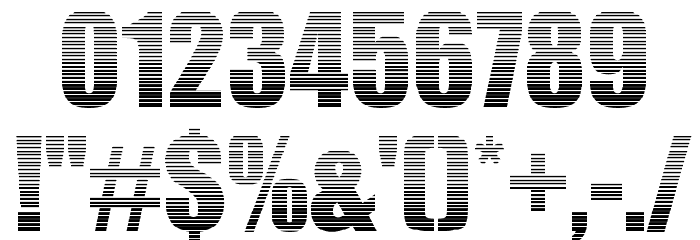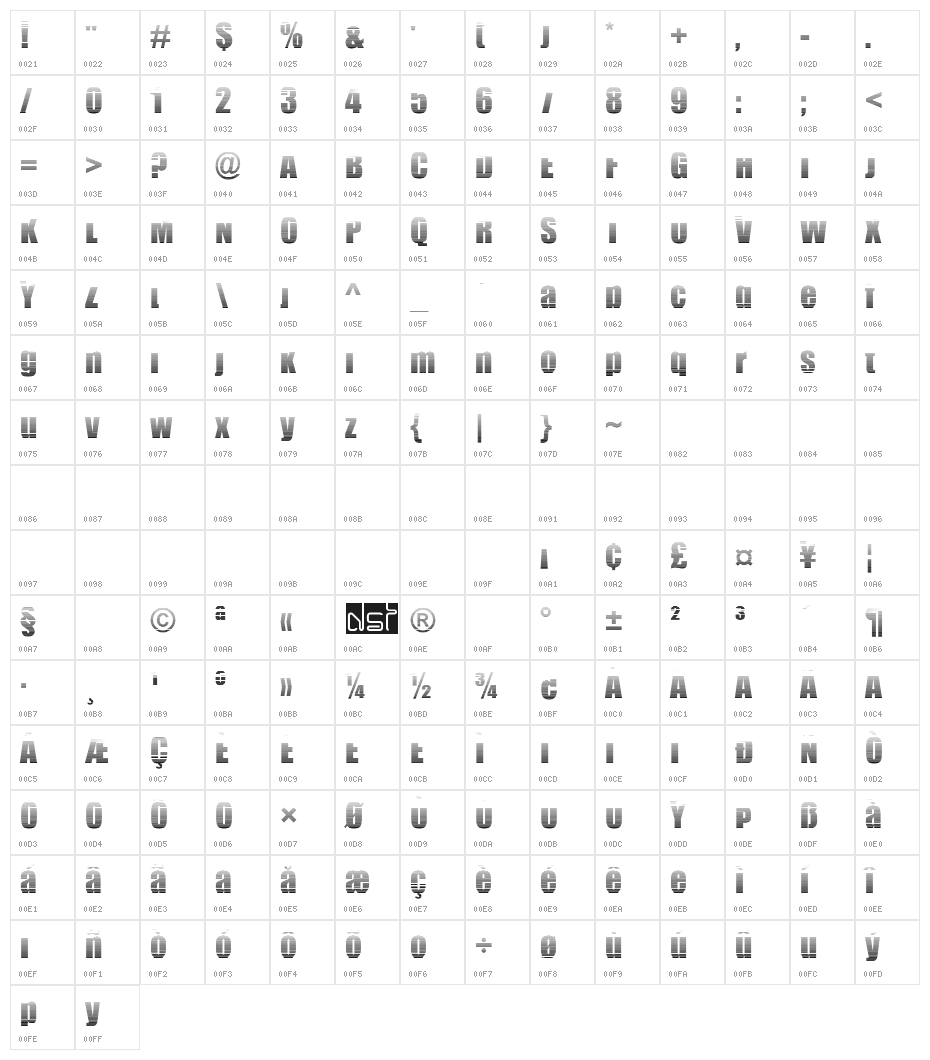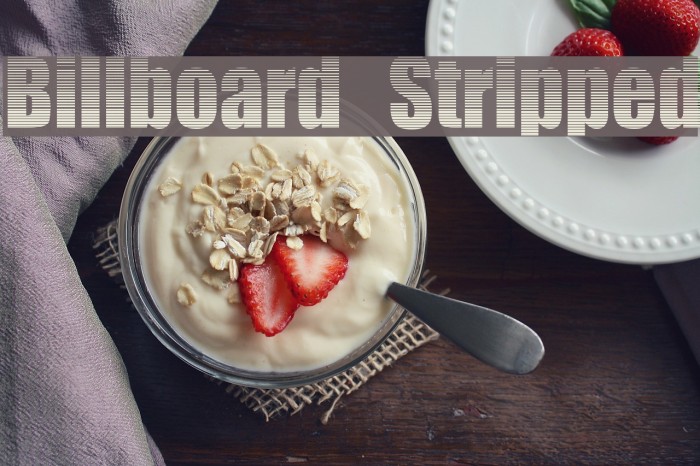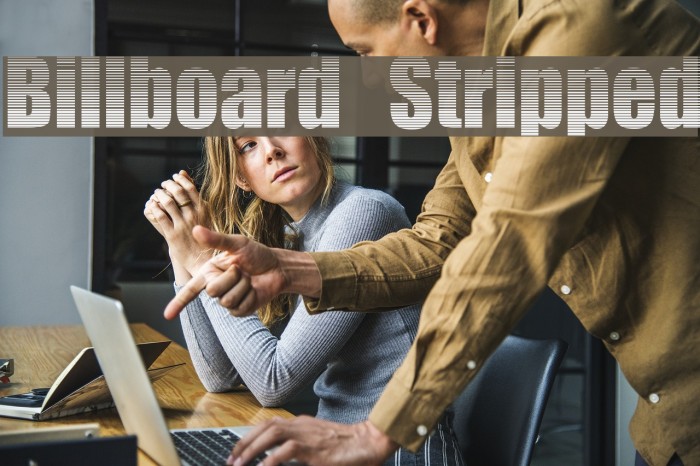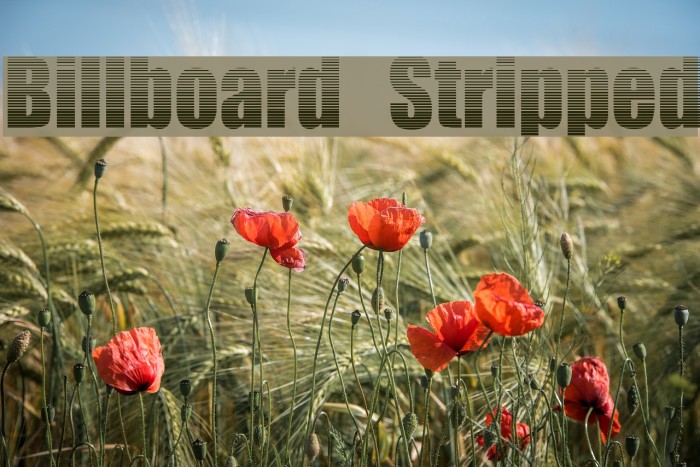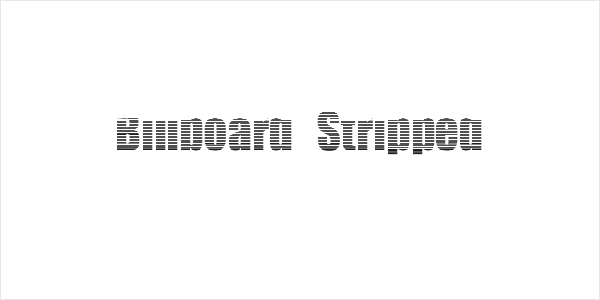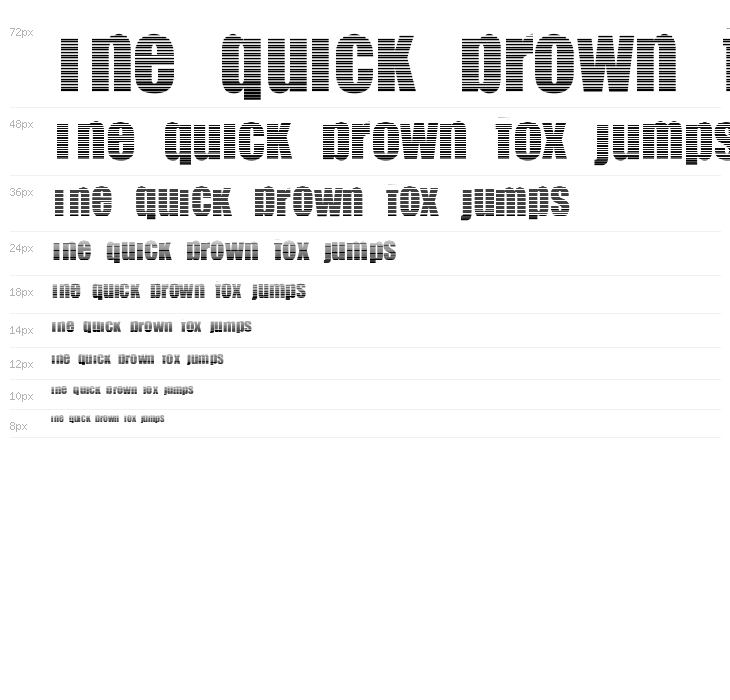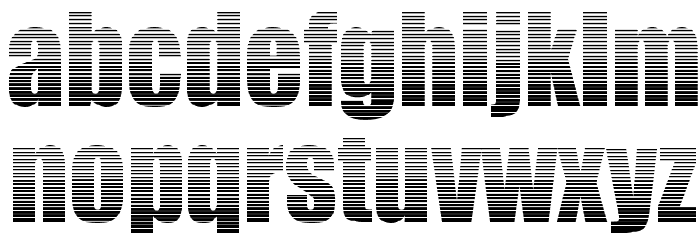
Billboard Stripped Font
Billboard Stripped Description
This font features a bold, striped design that gives it a distinctive and eye-catching appearance. Each character is composed of horizontal lines that create a sense of movement and energy. The uppercase and lowercase letters maintain a consistent style, with the stripes adding a unique texture. The numerals and special characters are also designed with the same striped pattern, ensuring uniformity across all elements. This font's boldness and unique style make it suitable for projects that require a strong visual impact.
| Proposed Projects | Ideal for posters, advertisements, and branding projects that require a striking and memorable visual element. |